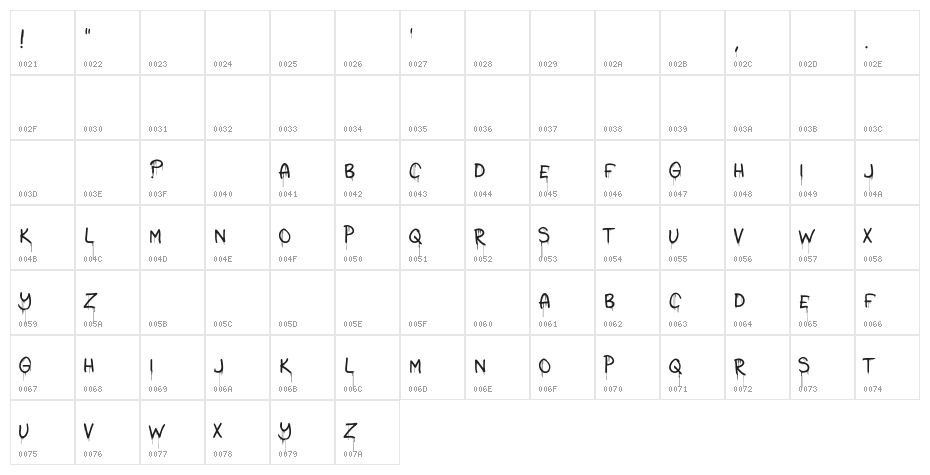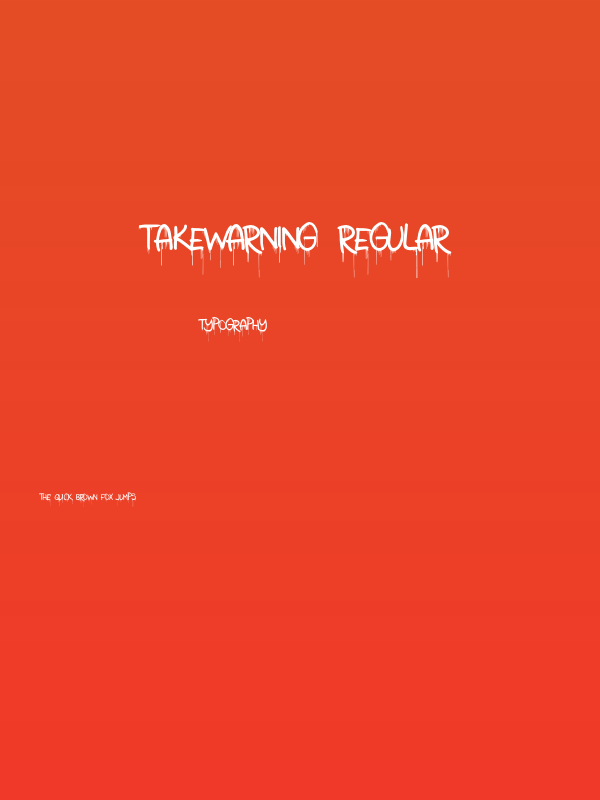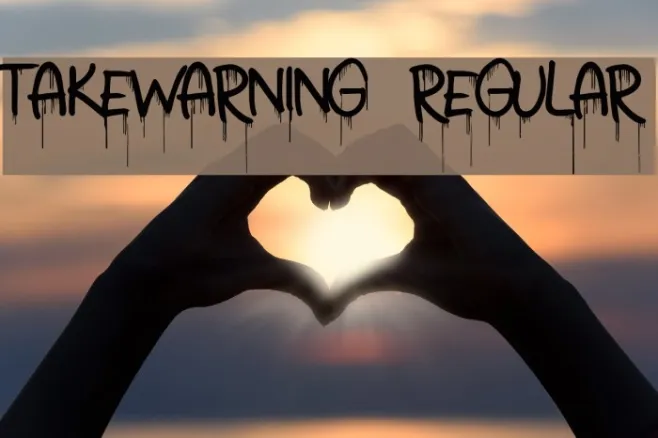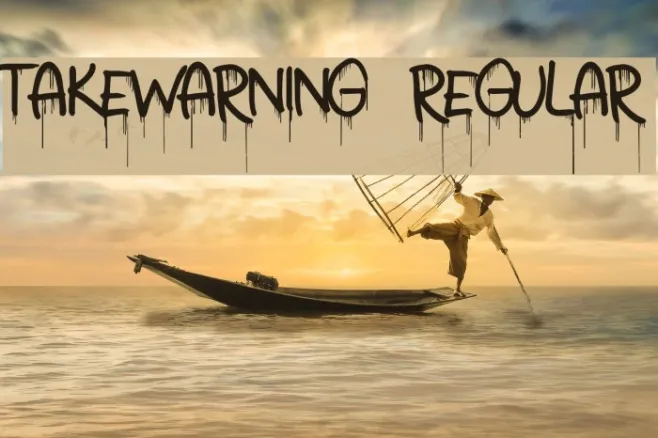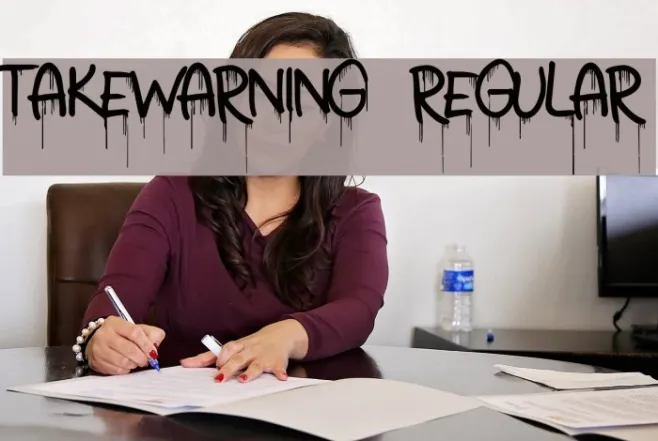
TakeWarning-Regular Font
TakeWarning-Regular Description
This font features a unique, edgy style with a dripping effect that gives it a graffiti-like appearance. The uppercase letters are bold and dynamic, with a sense of movement and energy. The characters have a consistent height and width, creating a uniform look while maintaining an artistic flair. The dripping effect adds a sense of rebellion and urban culture, making it stand out in any design. The font is perfect for projects that require a bold statement and a touch of creativity.
Fonts by Alex Tomlinson - Skyhaven Fonts - shfonts.com
| Overall Style | Urban, Edgy, Artistic |
| Proposed Projects | Ideal for street art designs, music album covers, urban-themed posters, and edgy branding projects. |
| Author | Fonts by Alex Tomlinson - Skyhaven Fonts - shfonts.com |